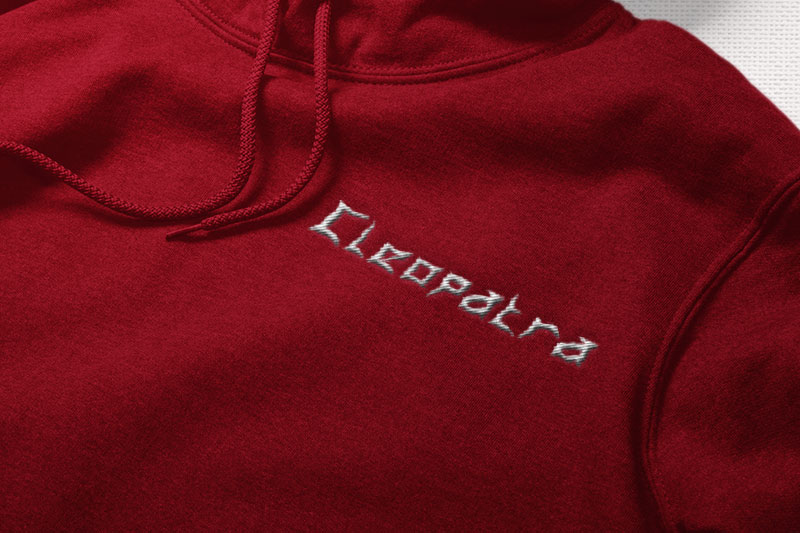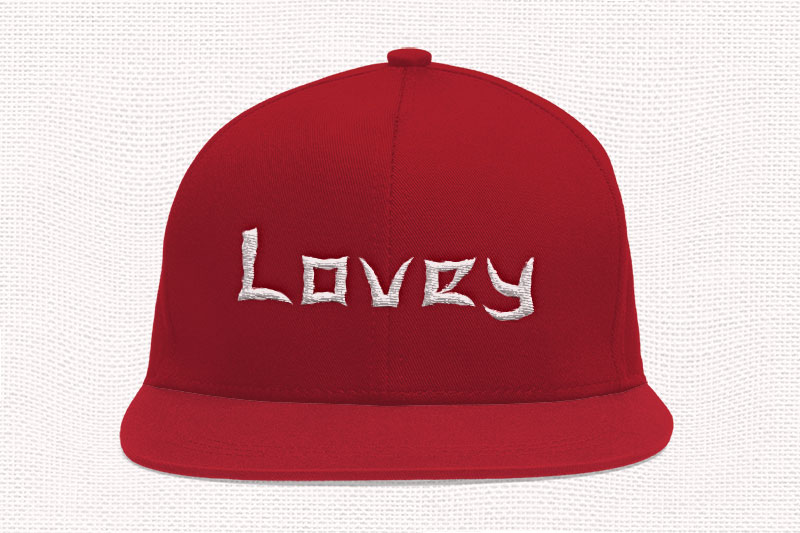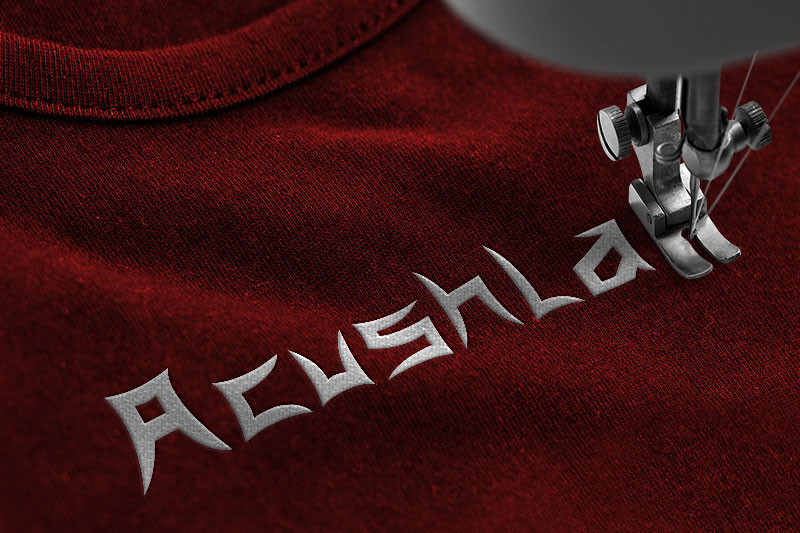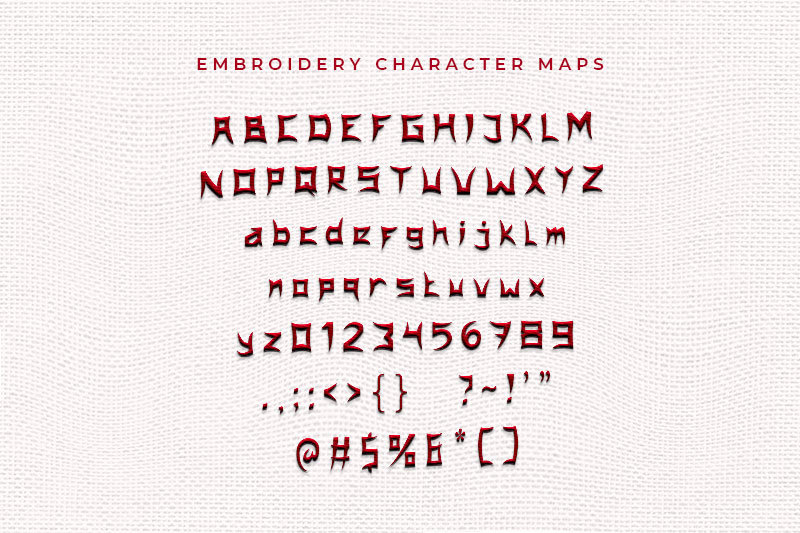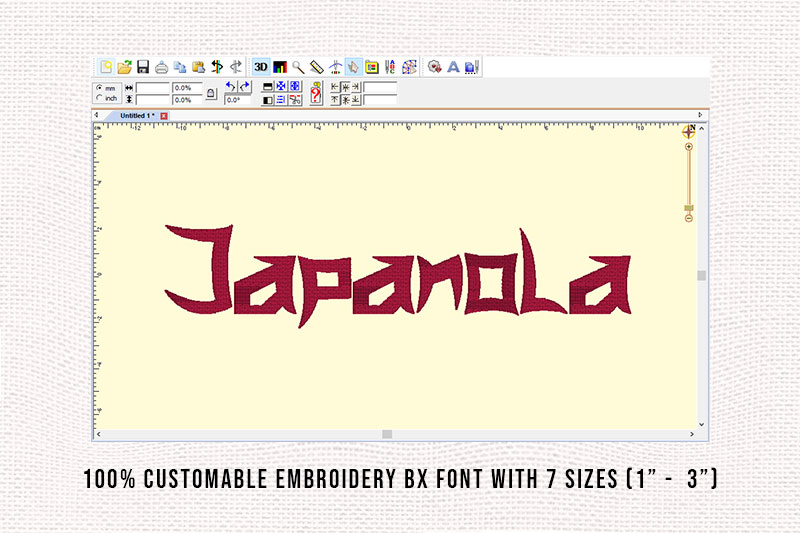
Talking about embroidered fonts will be very fun. Their appearance looks very warm and smooth making anyone who sees it will be amazed. This time, we present a new type of Embroidery font, called Japanola Embroidery Font. We created this font for digital and print use. You can also choose different file sizes and kinds to use.
Japanola Embroidery Font is perfect and has the same line width. This characteristic makes Japanola Embroidery Font display the impression of being modern and unique when viewed carefully and combined with appropriate objects.